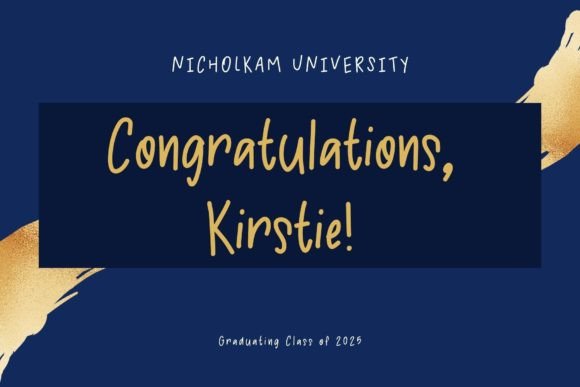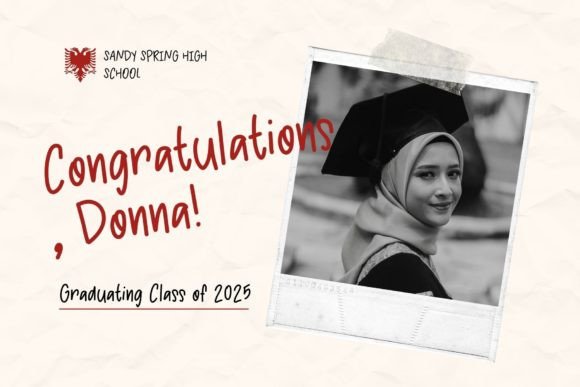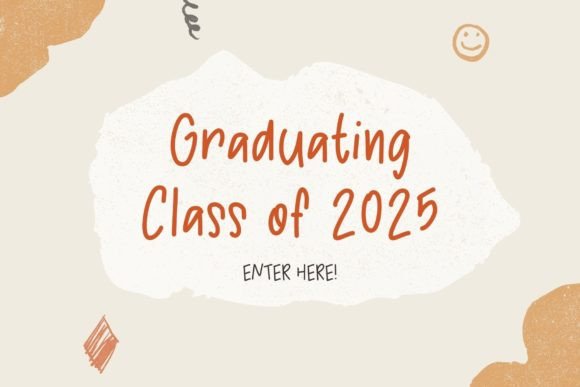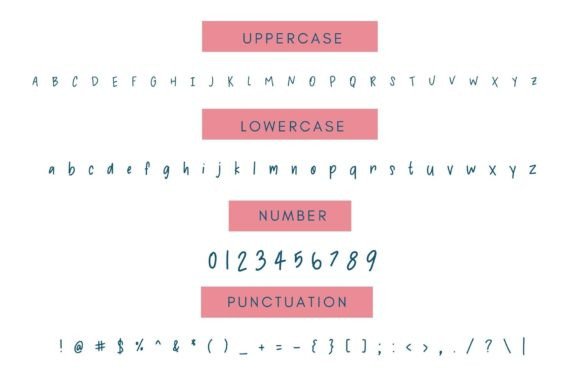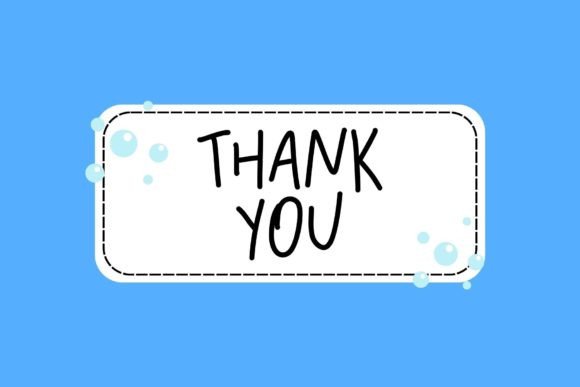
Introducing Charlee Font: The Ultimate Handwritten Font for Creative Projects
Are you tired of using the same old fonts for your designs? Look no further! Charlee Font is here to add a touch of playfulness and authenticity to your projects. This adorable handwritten font is perfect for designers, crafters, and anyone looking to add a personal touch to their creations.
What is Charlee Font?
Charlee is a carefully crafted handwritten font that exudes warmth and friendliness. Its unique and charming lettering style makes it an excellent choice for a wide range of projects, from blog posts and logos to branding, ads, invitations, greeting cards, planners, photo albums, decorations, and more.
Key Features of Charlee Font
• Playful and Authentic: Charlee Font embodies a sense of playfulness and authenticity, making it perfect for projects that require a personal touch.
• Handwritten Style: The font’s handwritten style gives it a unique and humanizing feel that sets it apart from more traditional fonts.
• Versatile: Charlee Font can be used for a wide range of projects, from digital designs to print materials.
• Easy to Read: The font is clear and easy to read, making it perfect for body text and headings.
Uses for Charlee Font
Charlee Font is an incredibly versatile font that can be used for various projects, including:
• Blog Posts: Add a personal touch to your blog posts and make them more engaging with Charlee Font.
• Logos and Branding: Use Charlee Font to create a unique and memorable logo for your brand.
• Ads and Marketing Materials: Make your ads and marketing materials stand out with the playful and eye-catching Charlee Font.
• Invitations and Greeting Cards: Add a touch of warmth and personality to your invitations and greeting cards with Charlee Font.
• Planners and Photo Albums: Use Charlee Font to add a personal touch to your planners and photo albums.
• Decorations: Charlee Font can also be used for decorations, such as party signs, banners, and more.
Why Choose Charlee Font?
With so many fonts available, why choose Charlee Font? Here are just a few reasons:
• Unique Style: Charlee Font has a unique and charming style that sets it apart from other fonts.
• High-Quality: Charlee Font is a high-quality font that is designed to produce crisp and clear results.
Tips for Using Charlee Font
Here are a few tips for getting the most out of Charlee Font:
• Experiment with Sizes: Charlee Font looks great in a variety of sizes, so don’t be afraid to experiment to find the perfect size for your project.
• Pair with Other Fonts: Charlee Font pairs well with other fonts, so try combining it with a sans-serif font for a modern look.
• Use for Headings and Body Text: Charlee Font is clear and easy to read, making it perfect for both headings and body text.